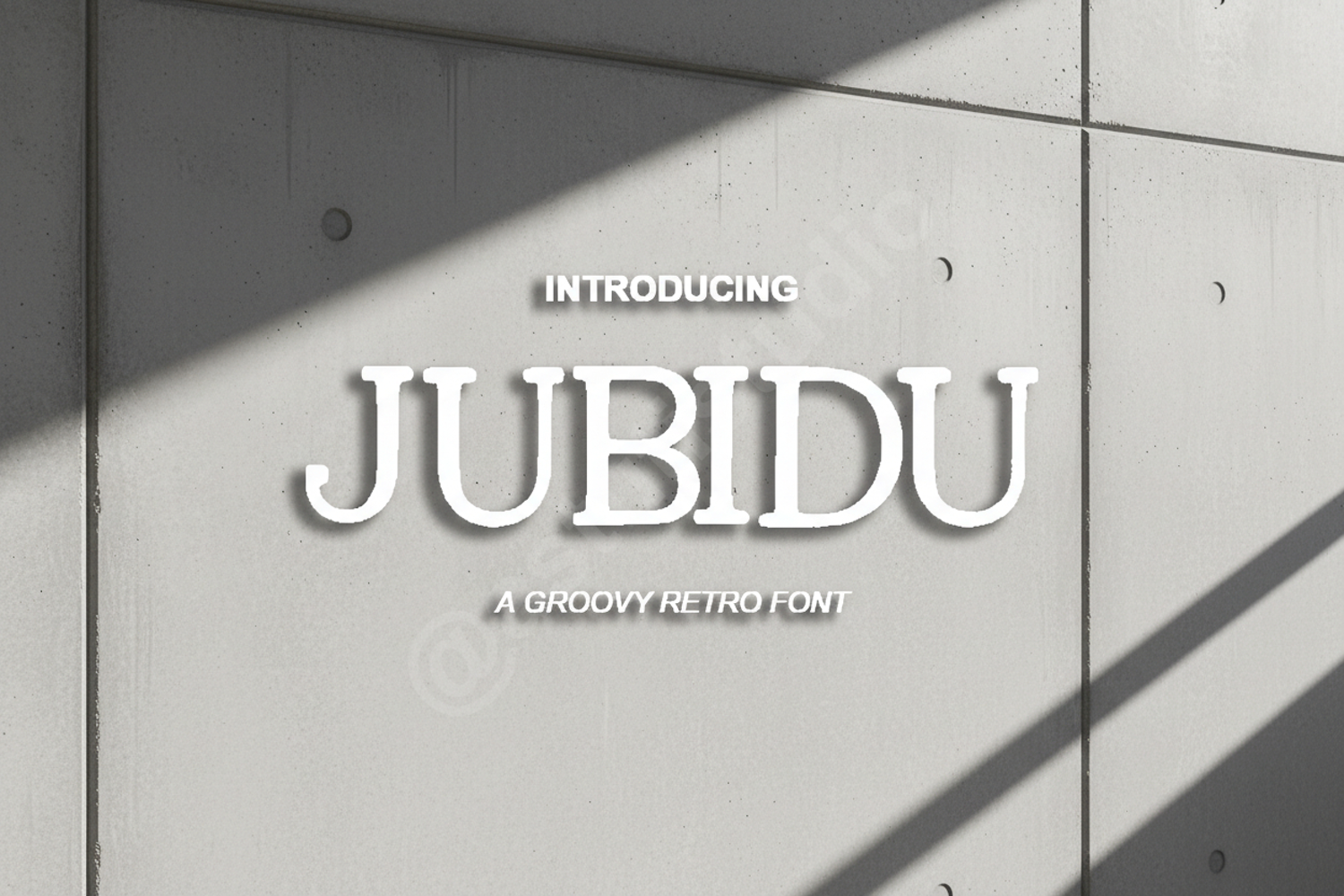
Jubidu | Playful & Modern Display Typeface
Jubidu
Jubidu is a premium display font that blends playful charm with modern sophistication. Meticulously crafted to ensure high legibility and a unique aesthetic, this font is perfect for creators who want to inject personality into their designs. Whether you are working on a high-end brand or a whimsical project, Jubidu offers the versatility you need to make an impact.
- Branding and Identity: Create memorable logos and distinctive brand marks.
- Social Media: Design eye-catching posts for Instagram, Pinterest, and TikTok.
- Packaging: Elevate product boxes and labels with a premium, custom touch.
- Wedding Stationery: Add a modern yet elegant feel to invitations, menus, and place cards.
- Editorial Design: Perfect for bold headlines and stylish magazine layouts.